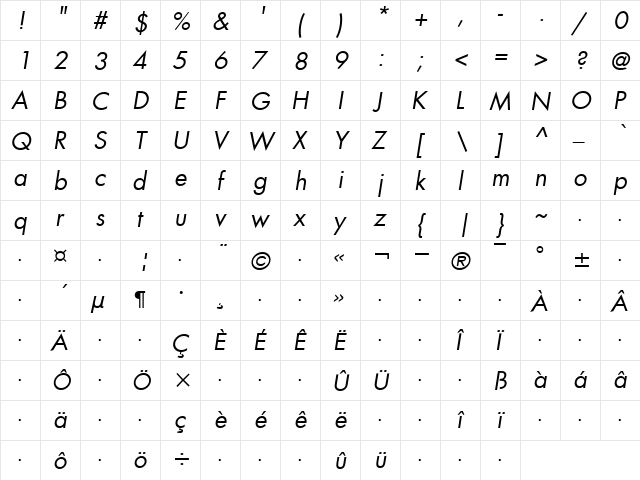
Modern Oblique
Design Context for Modern Typeface
Modern takes a measured approach to typography — its balanced proportions and neutral character make it a reliable workhorse for both digital and print work. The slanted form adds forward momentum and visual energy.
Pro Tip: Try Modern for annotation and caption copy alongside an upright companion — the contrast in angle creates a dynamic but ordered typographic system.